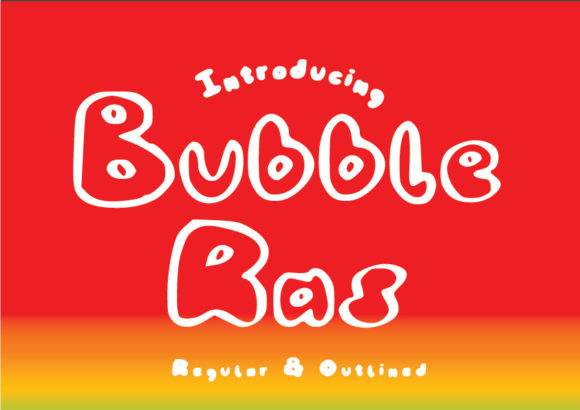
Venture into the captivating world of Bubble Ras Font, a display font family that ignites imagination and sparks creativity. Dive into its enchanting embrace, where vibrant personalities dance among the curves and lines. Each character exudes a playful charm, reminiscent of sun-kissed beaches and reggae rhythms, inviting you to escape the ordinary and dive into a world of pure artistic expression.
With Bubble Ras Font, you'll discover a universe of possibilities. Whether you're designing a poster for a music festival, creating a playful logo for your business, or crafting an eye-catching social media post, this font promises to make a statement. Unleash your inner artist and watch as your designs transform into masterpieces, capturing the hearts and minds of your audience.
Bubble Ras Font seamlessly blends the best of both worlds, effortlessly transitioning from print to web. Its unique aesthetic shines through, whether gracing the pages of a magazine or adorning the digital realm. Let your creativity flow as you weave words into stunning visuals, captivating your readers with every stroke.
Embrace the heritage of Bubble Ras Font, which proudly carries the legacy of the 'International Reggae Poster competition' 2015. Let your designs resonate with the spirit of reggae, spreading joy and positivity wherever they may roam. Its fun and relaxed vibe invites you to lose yourself in the rhythm of creativity, creating designs that bring smiles to faces and set hearts aflutter.
Step into the realm of artistic freedom with Bubble Ras Font, where imagination knows no bounds. Dive into its depths and discover a font that ignites your passion and fuels your creative spirit. Embrace the beauty of Bubble Ras Font, and watch as your designs blossom into works of art, leaving an indelible mark on the world.